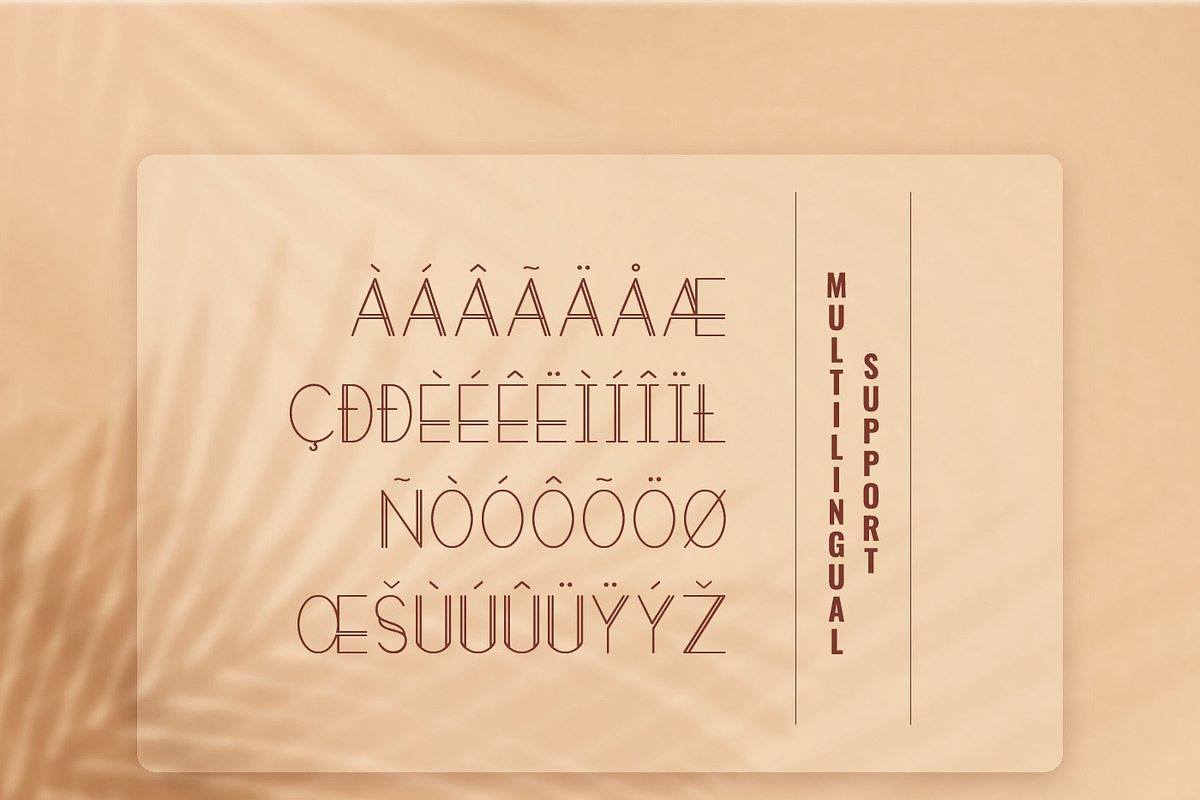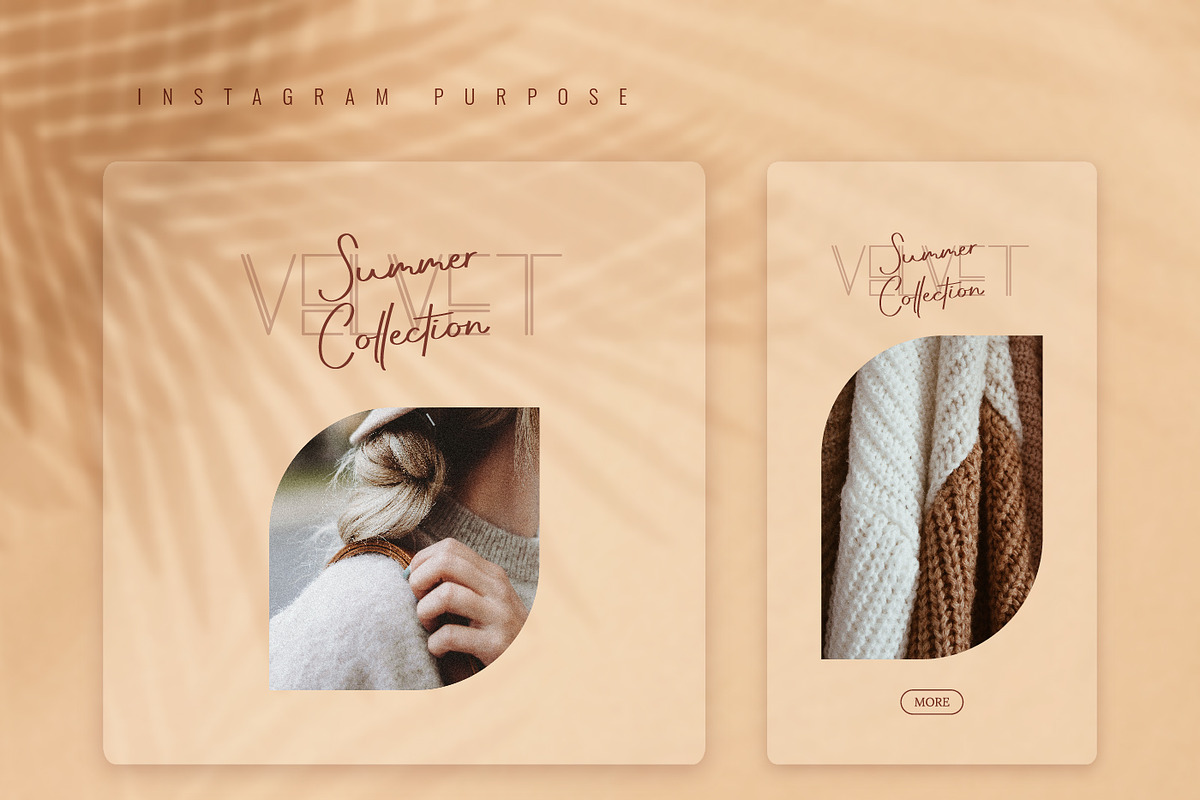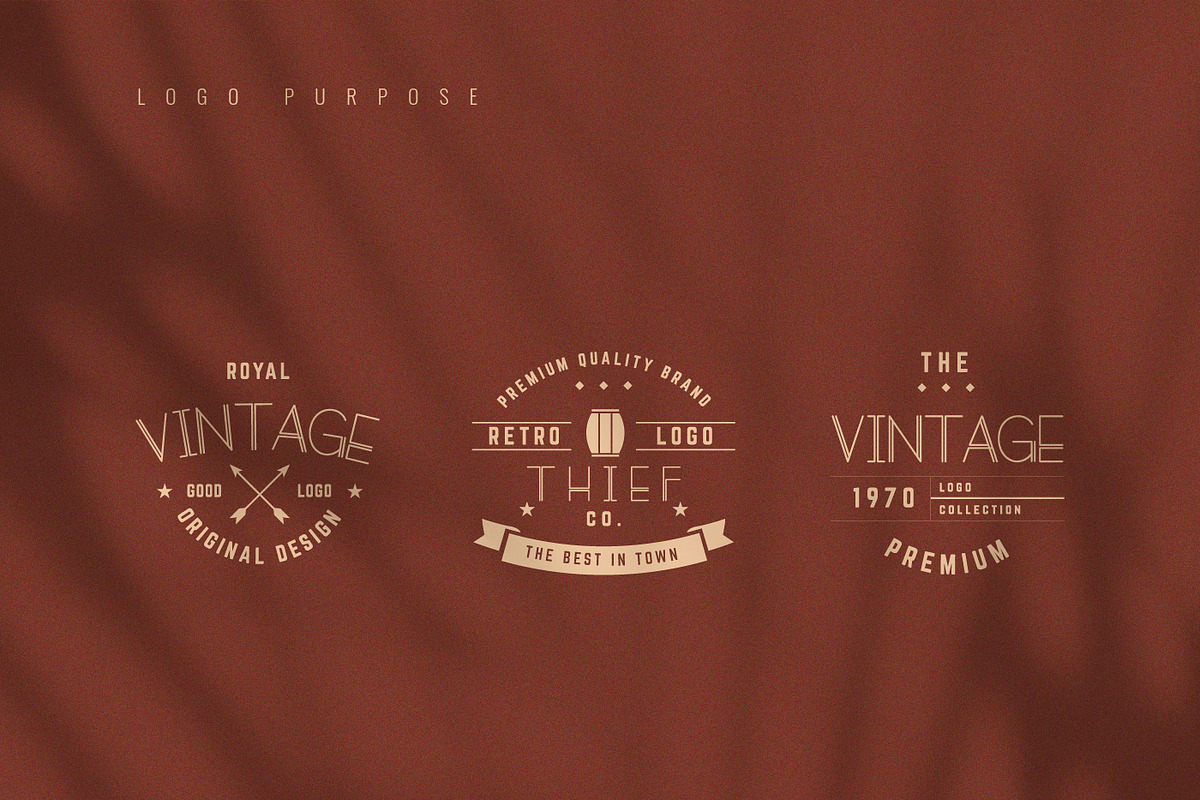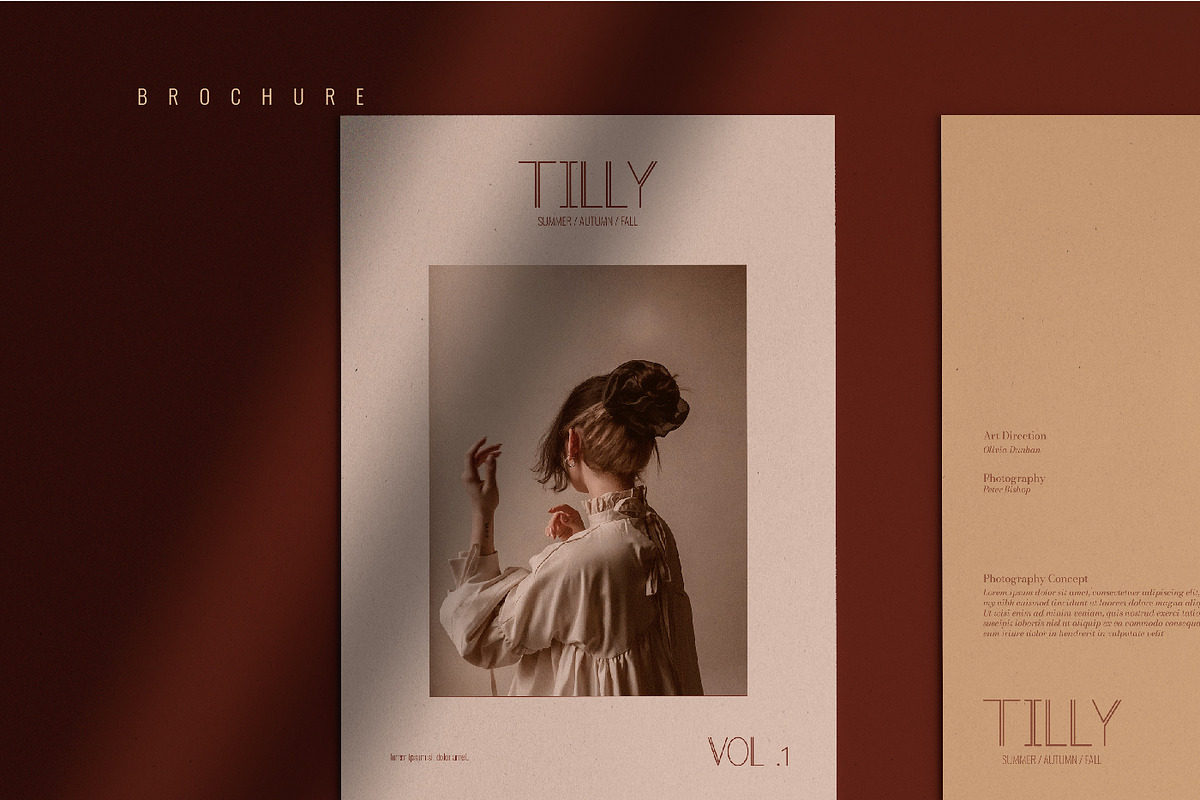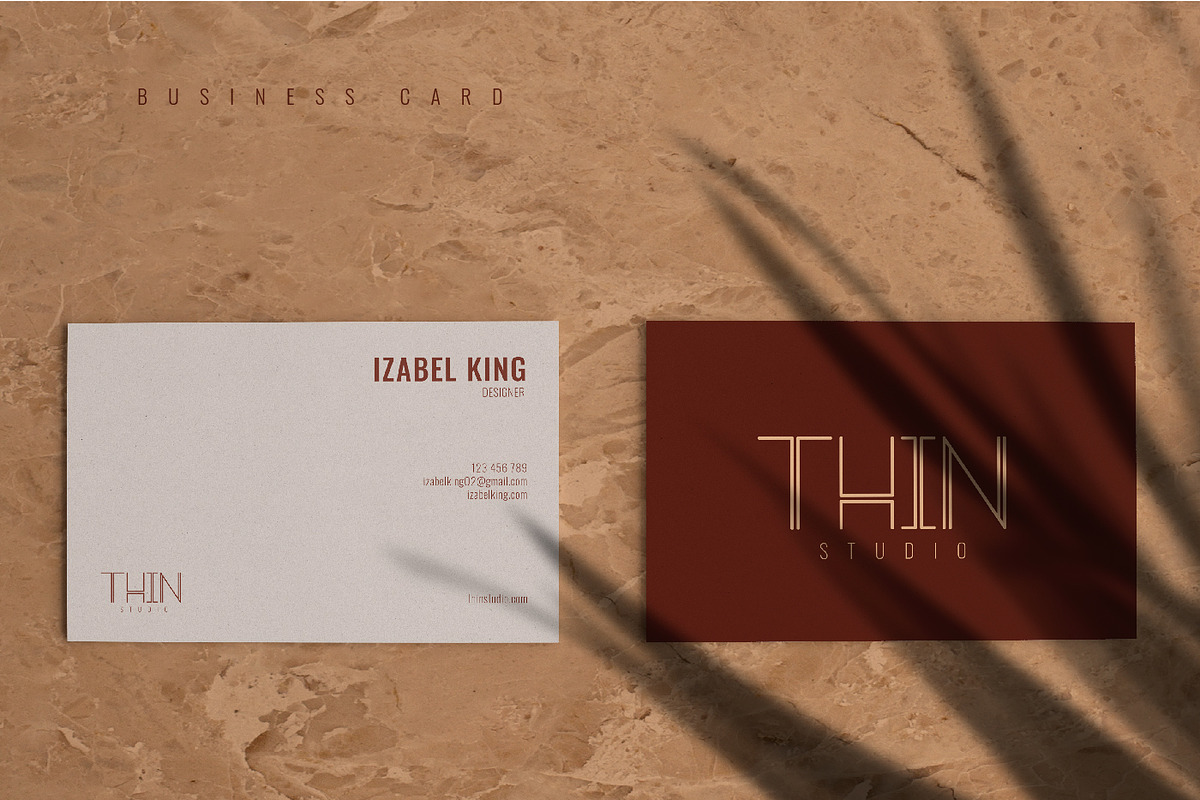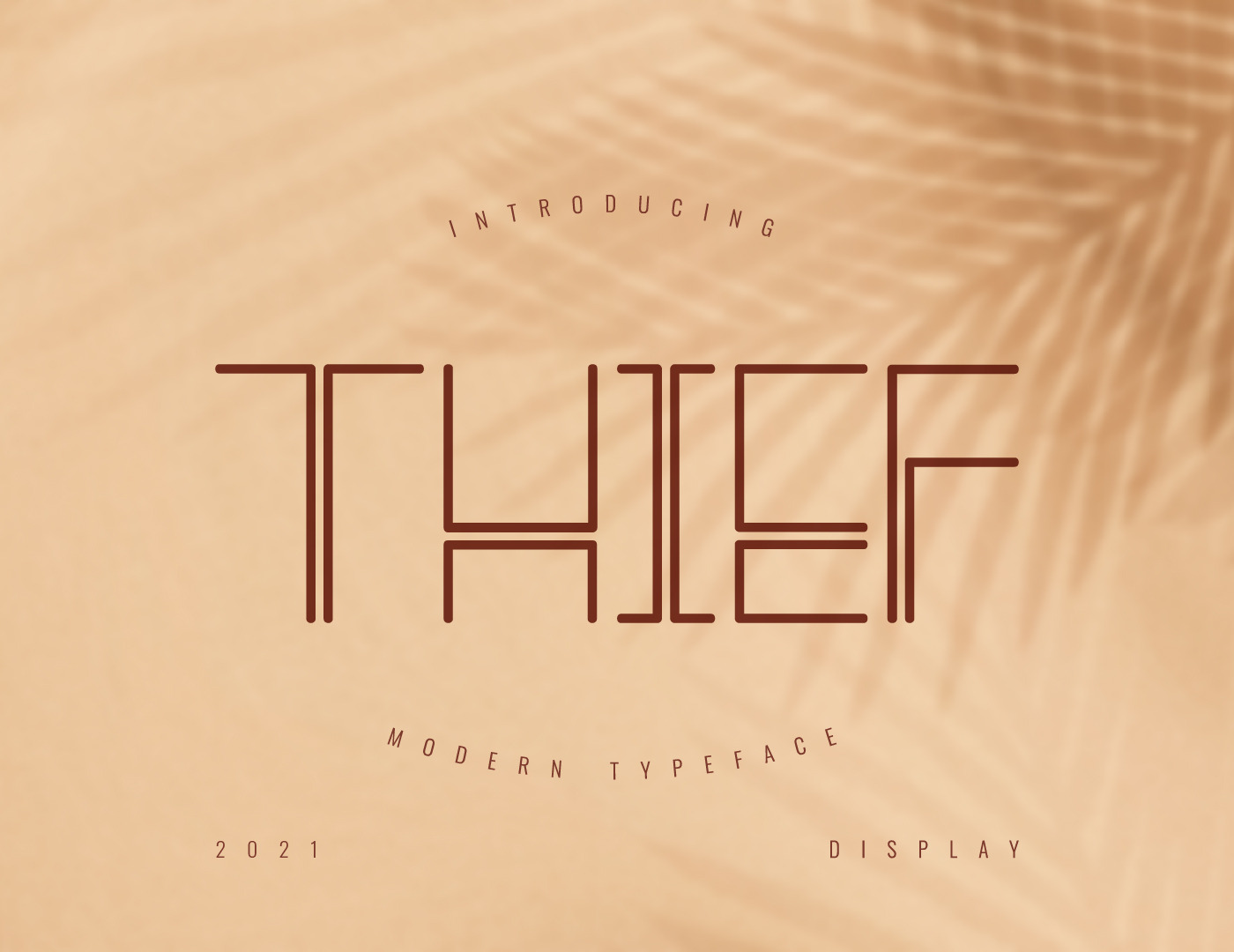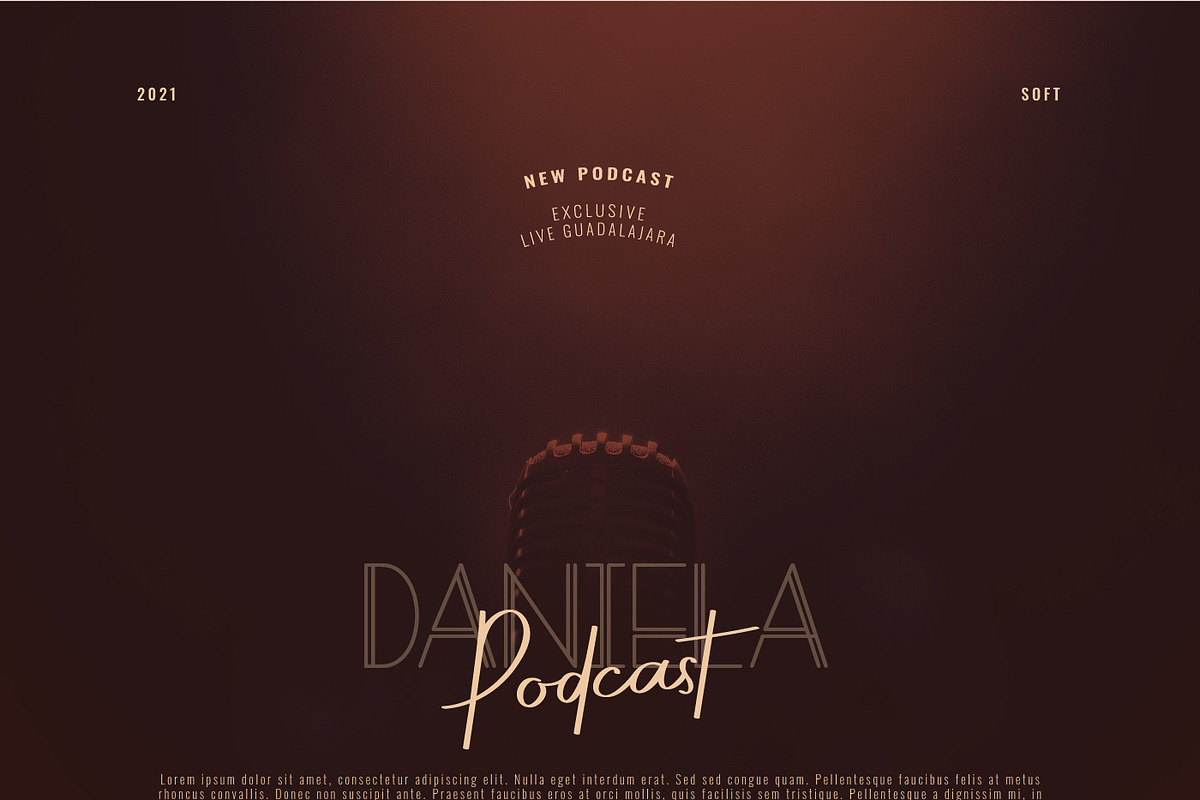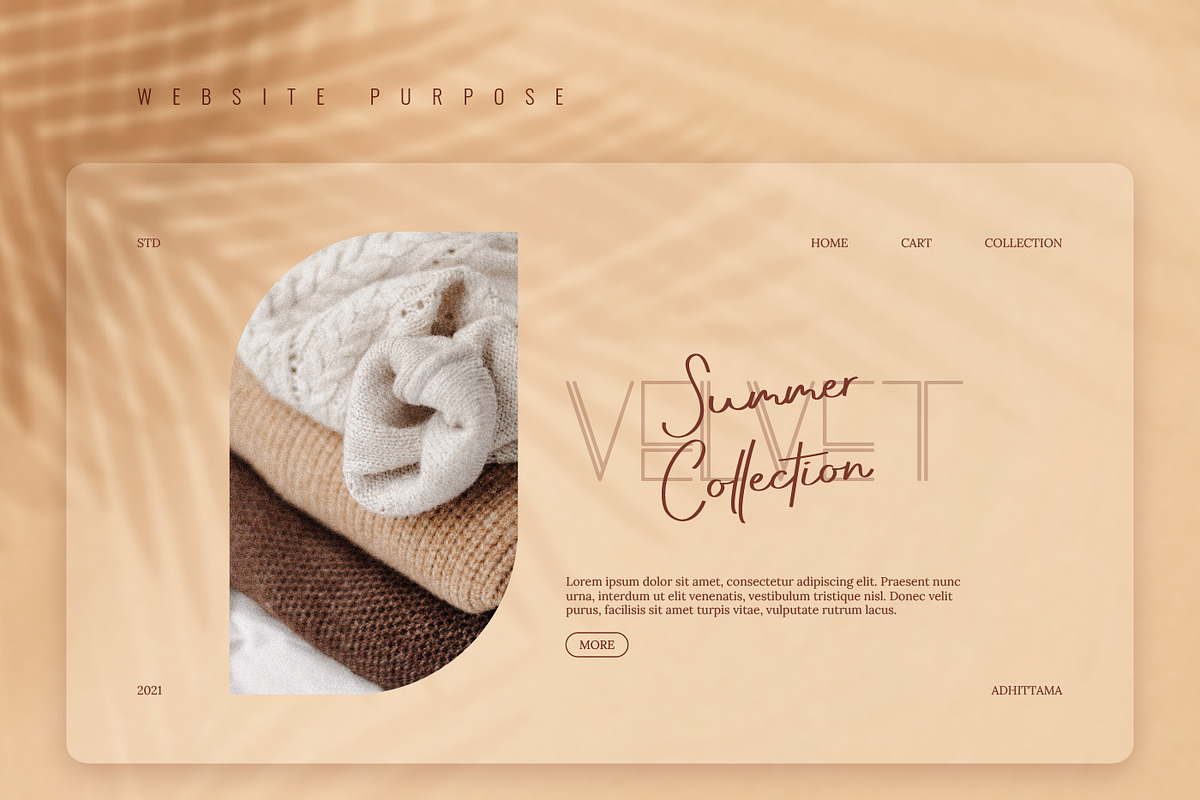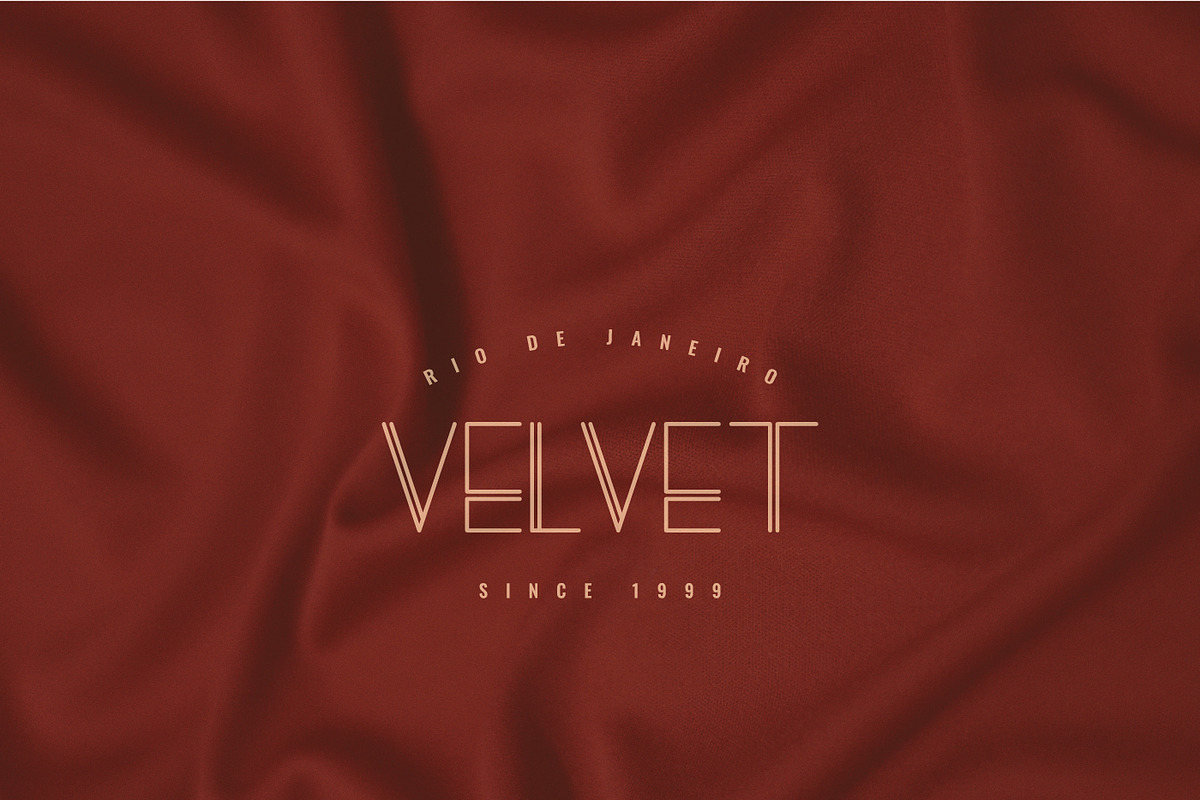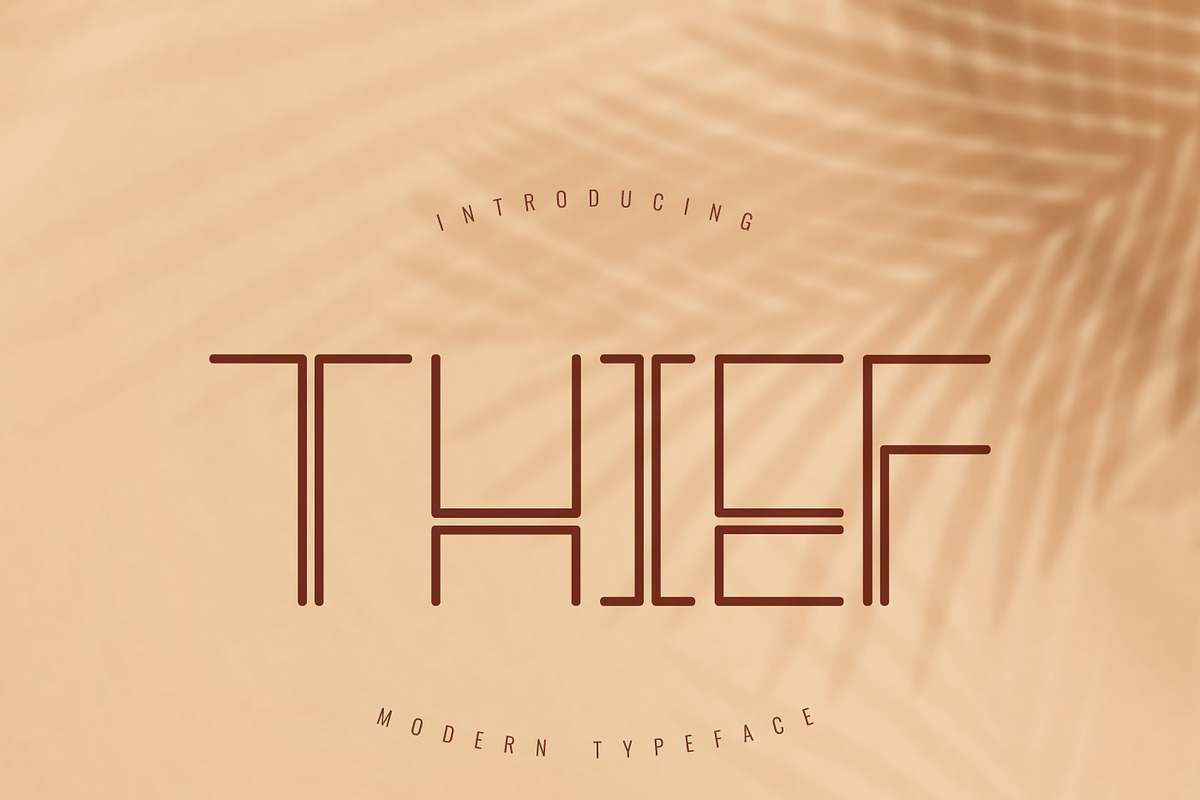
Thief Modern Typeface
Thief Modern Typeface, the new “Display Collection” Font. A fashionable and well-ordered new Typeface Font with irresistible stylish. Designed in Indonesia, 2019—it is inspired from the lines which created on the prison wall, also the prison bars. We created it and make it more neat and appropriate for logo branding and headlines. "Thief" will make the design look more simple and neat, has distinctive.